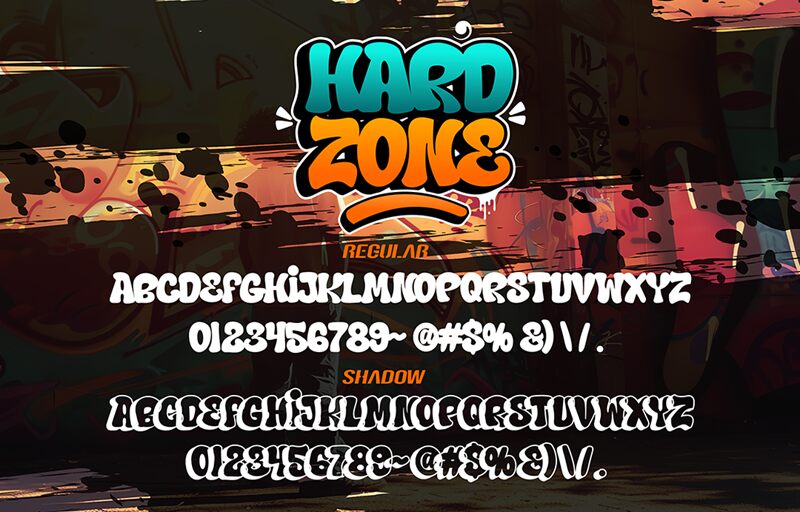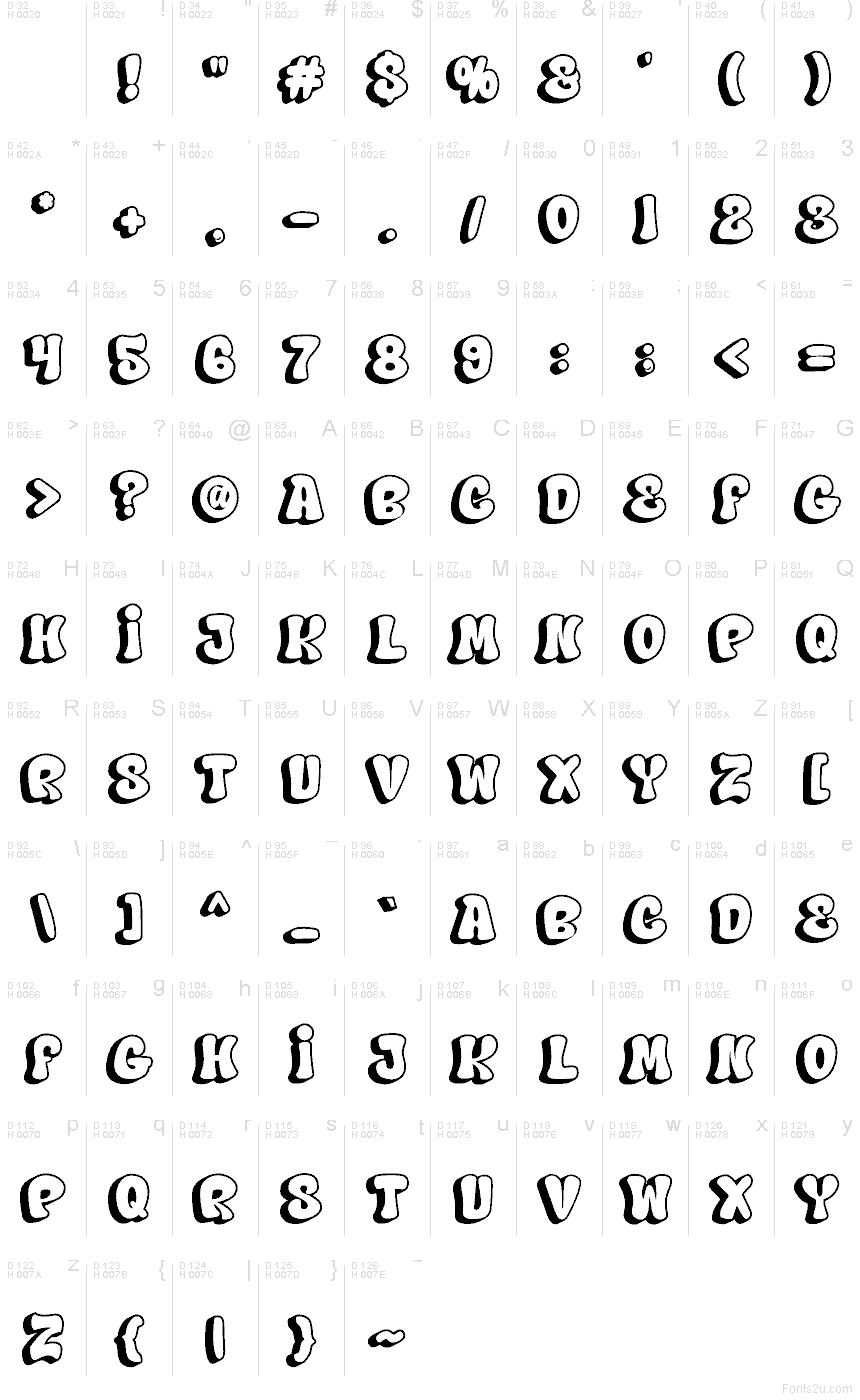
Hard Zone - Shadow
Hard Zone - Shadow font by Saepul milah of CikareotypeStudio x figureeStudio is a free graffiti font with chunky, airbrushed bubble forms and a built-in shadow cut that makes every word pop like wet paint under a streetlight. The tight, bouncy spacing keeps it loud without getting messy, so short phrases read fast even at a glance.
Using Hard Zone - Shadow works beautifully for streetwear logos, skate posters, music flyers, YouTube thumbnails, sticker packs, album covers, and gaming headers. Set it large and give it breathing room so the shadow detail stays crisp; pair it with a clean condensed sans for dates, prices, or credits—this free font likes a sharp sidekick.